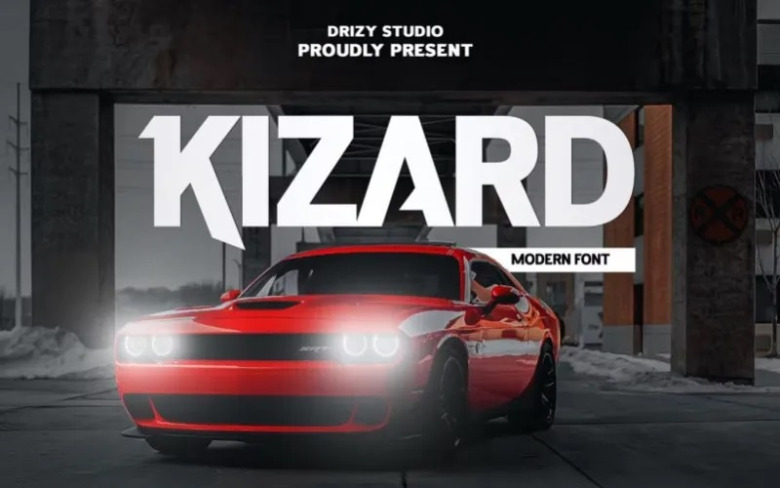
Kizard Font
Kizard is a sans serif sharp modern display font. gives you all the basic modern styles that you’ll need to get a project off on the right foot. Great for use in branding projects, logo design, clothing branding as wellas product packaging. Magazine headers and headlines will pop too or simply overlay the text on a background of any image!
Kizard Display Font